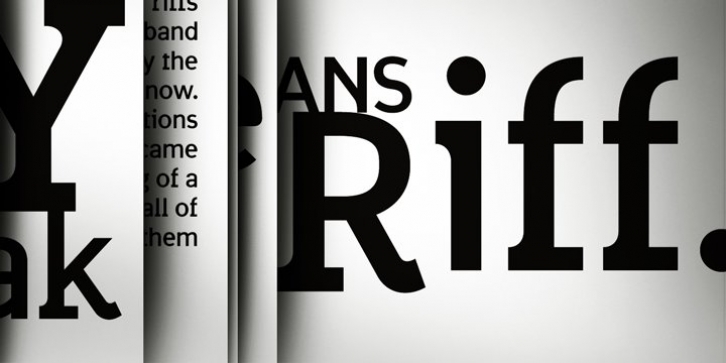
Riff was designed by Dado Queiroz and published by estudioCrop. Riff contains 1 style.
Having spent all of my teenage years in the 90s, it's no surprise that this very particular decade resonates so deeply in me. As a graphic designer, I still think the strongest visual languages of the last 50 years or so come from that time. Bold aggressive attitude is what most people remember from those designs. What they seem to forget-or, rather, to have completely ignored-is that some incredibly elegant and subtle styles emerged from those years. It still amazes me how they reflected so well the period in which they were conceived, taking style construction to the next level.
Riff is a natural development of some of my thoughts about the 90s. Mixed with a very contemporary feel, it embodies several idiosyncrasies I absorbed over years of exposure to favorite design pieces, fonts, music, films and other cultural products that share the same spirit.